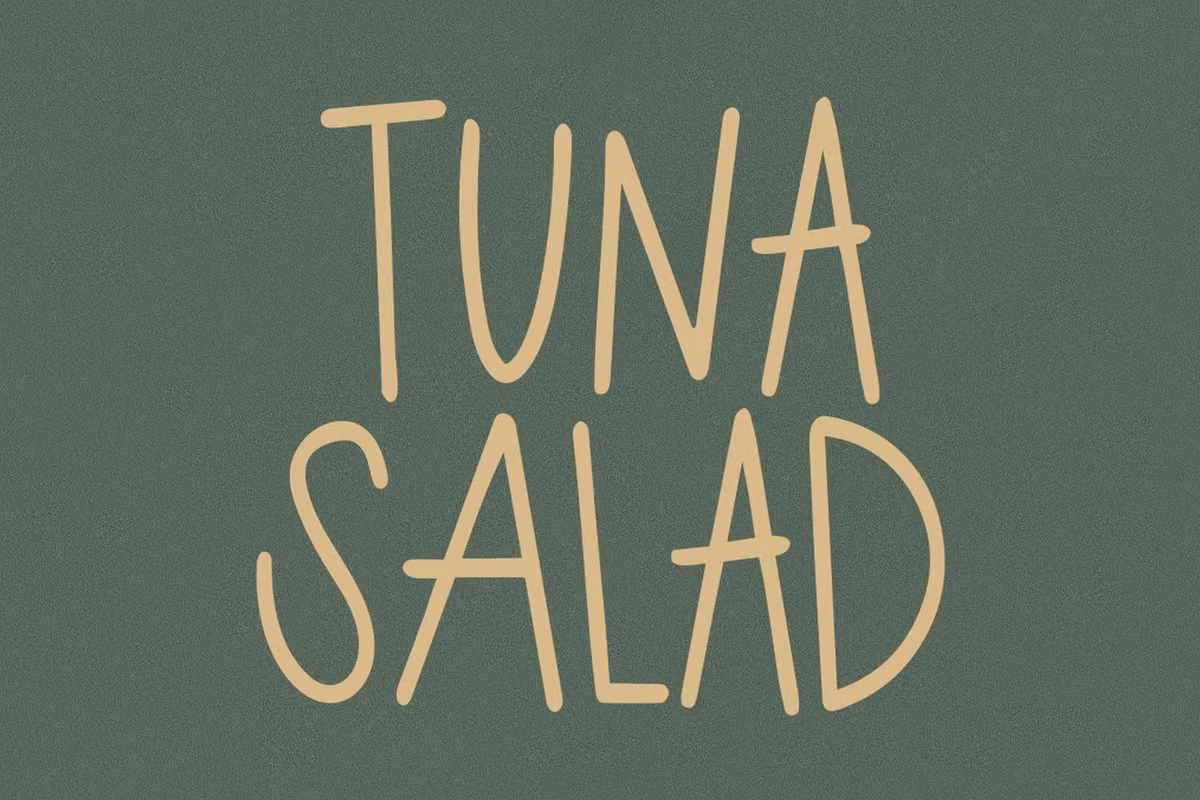
Tuna Salad | Quotable Kids Font Free Download is a playful, whimsical typeface designed specifically for children’s designs. With its fun, rounded letterforms and easy readability, Tuna Salad is perfect for children's books, educational materials, posters, invitations, and kid-friendly branding.
This font adds a lighthearted, cheerful touch to any project, making it ideal for designs that need to feel approachable, joyful, and playful. Whether you're creating a birthday card, a playful quote poster, or designing for a toy brand, Tuna Salad brings personality and warmth to your typography.